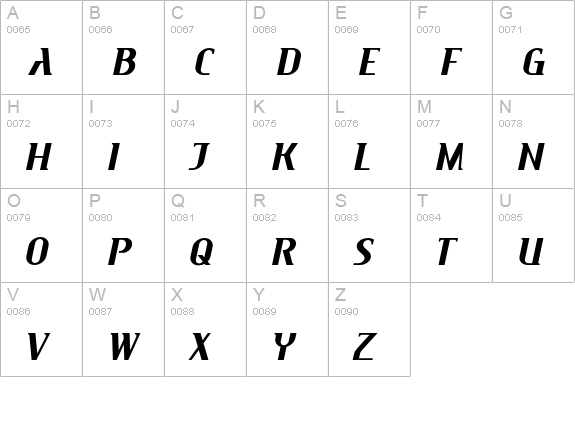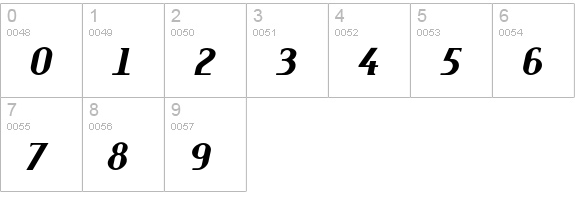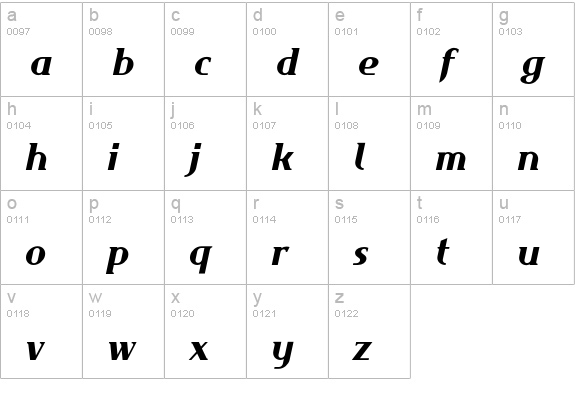
Maverick-BoldItalic Font Details
Introducing Maverick-BoldItalic, a daring and stylish typeface that exudes confidence and sophistication. This font is the perfect choice for making a bold statement in your design projects. With its strong and slanted appearance, Maverick-BoldItalic commands attention and stands out from the crowd. Designed with a modern twist on traditional typography, Maverick-BoldItalic strikes the perfect balance between elegance and edginess. Its distinctive italicized style adds a touch of flair to any text, making it ideal for headlines, logos, branding, and more. What's even better is that Maverick-BoldItalic is completely free to download at FontsMarket.com. Yes, you read that right - you can enhance your designs with this eye-catching font without spending a dime. So go ahead and unleash your creativity with Maverick-BoldItalic today!